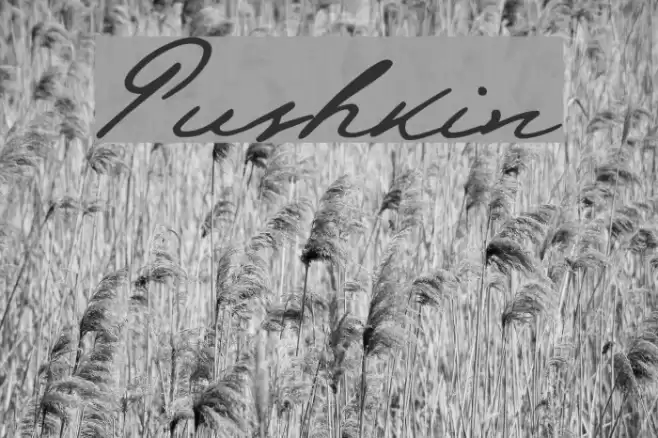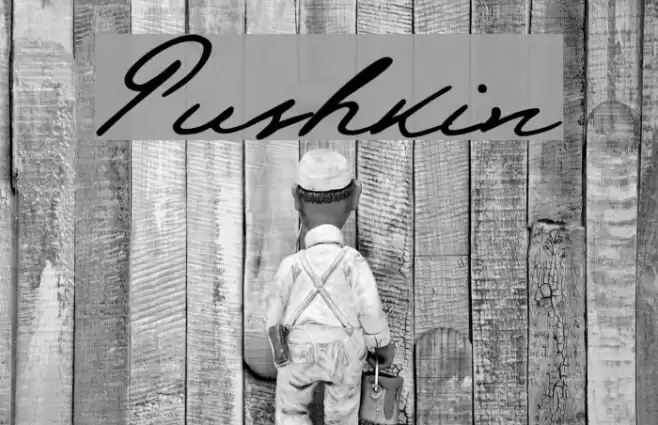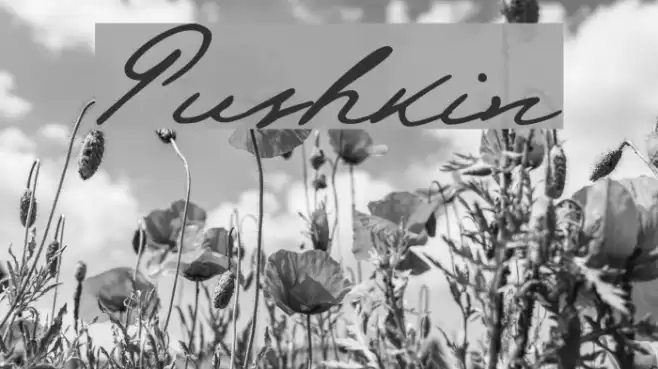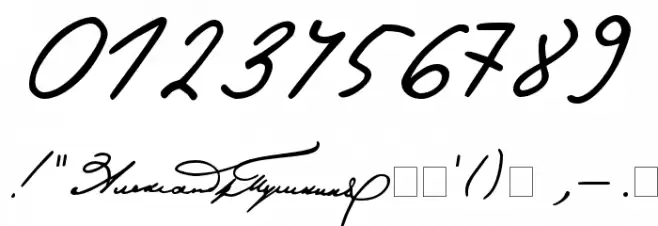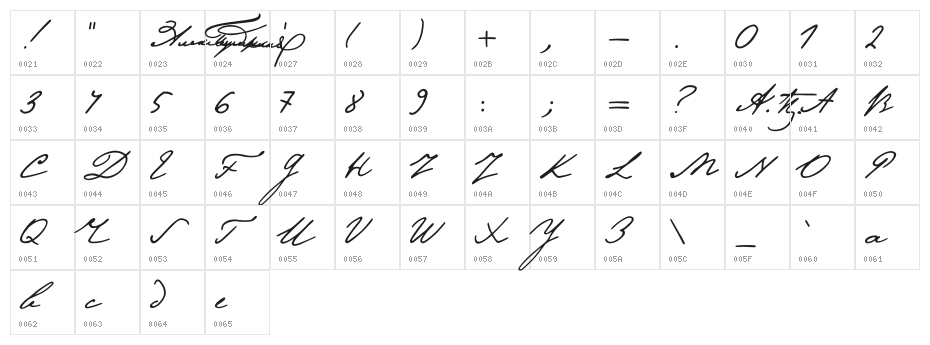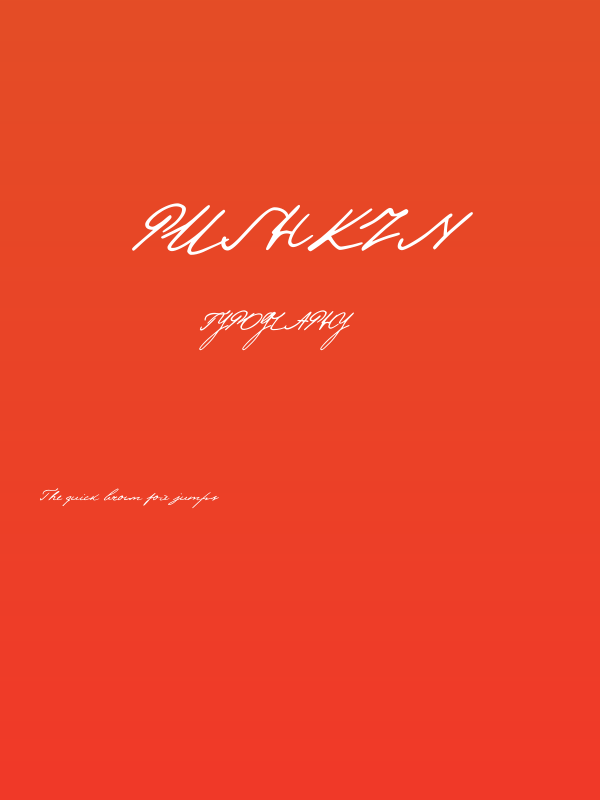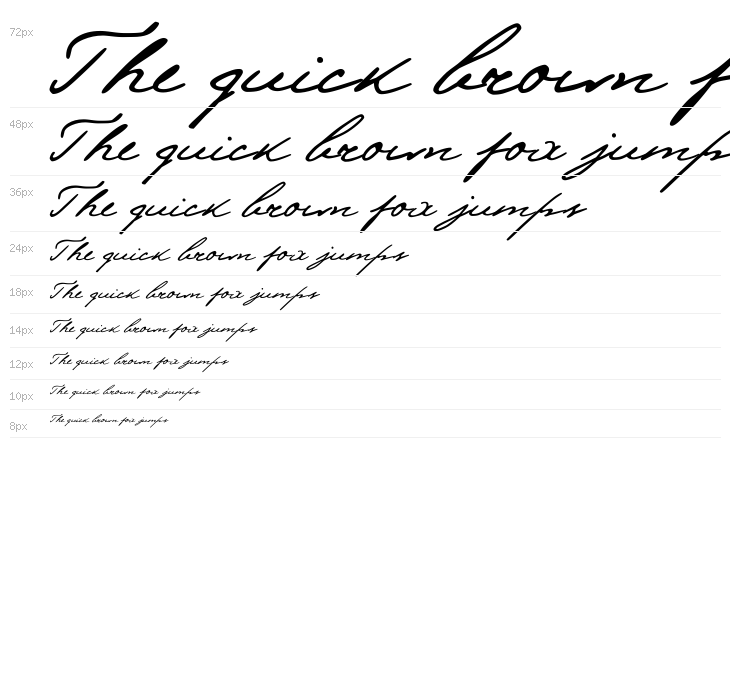
Pushkin Font
Pushkin Description
This elegant script font exudes a classic and sophisticated charm, reminiscent of traditional cursive handwriting. The letters are gracefully connected, with smooth, flowing lines that create a sense of fluidity and movement. The uppercase letters are slightly more ornate, featuring subtle flourishes that add a touch of refinement. The lowercase letters maintain a consistent style, with gentle curves and loops that enhance readability. The numerals are clear and distinct, matching the overall aesthetic of the font. Special characters are thoughtfully designed to complement the script style, ensuring a cohesive appearance across all text elements.
A classic, elegant script font with flowing, connected letters and refined flourishes from Handwritten fonts.
- Proposed Projects: Ideal for wedding invitations, elegant branding, personal stationery, and decorative quotes.
- Overall Style: Classic
- Use Case: Logos, Invitations, Decorative text